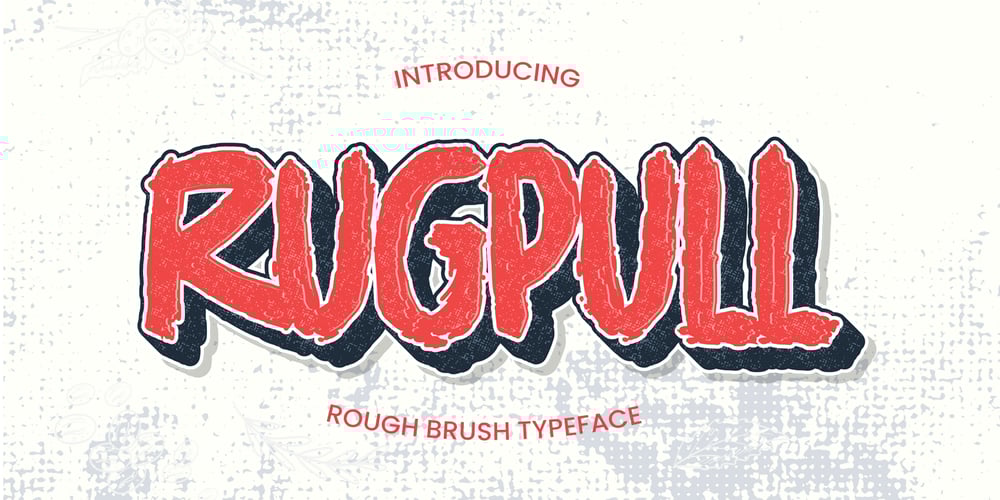
Rugpull
Rugpull font
Rugpull Font Family was designed by Abdul Malik Wisnu, Anang Fibriyanto and published by Gassstype. Rugpull contains 1 styles and family package options. Hello Everyone, introduce our new product font Rugpull is a Rough Brush Typeface and dramatic movement with ligature and Multilanguage support. This font is great for your next creative project such as logos, printed quotes, invitations, cards, product packaging, headers, Logotype, Letterhead, Poster, Label, cartoon, and comic etc.That is has charming, authentic and relaxed characteristic more natural look to your text.You can activate Ligature OpenType panel.